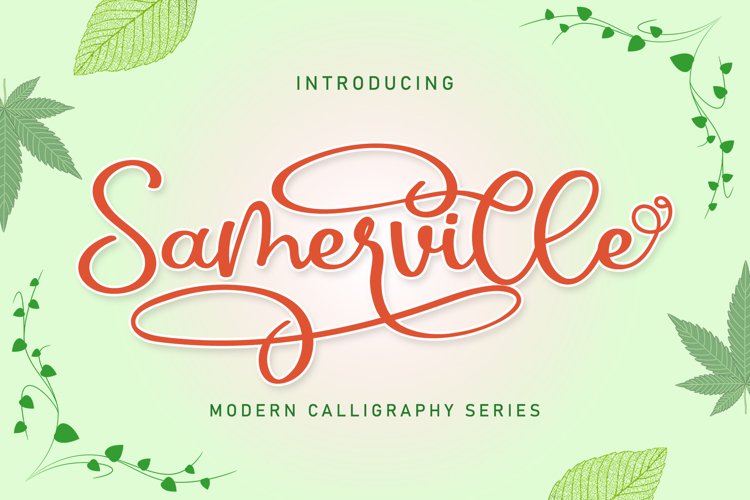
Samerville is cute and casual script font. It can be applied for wide ranges of design project.
+More than 300 Glyphs
+PUA-Encoded for many alternates and ligatures
+Multilingual glyphs.